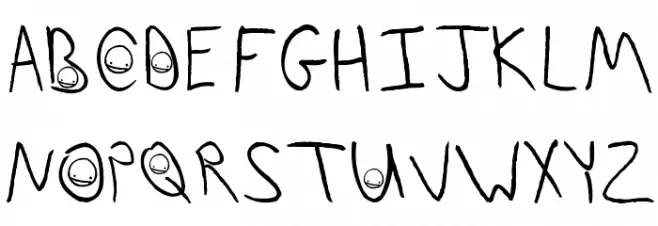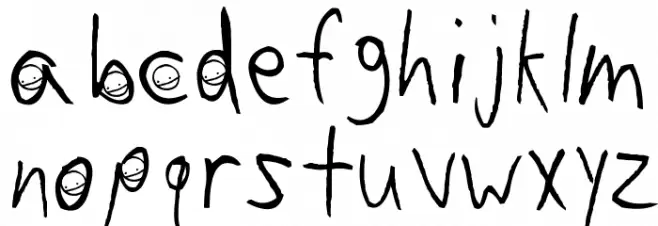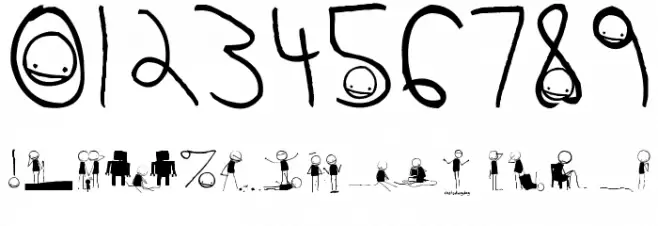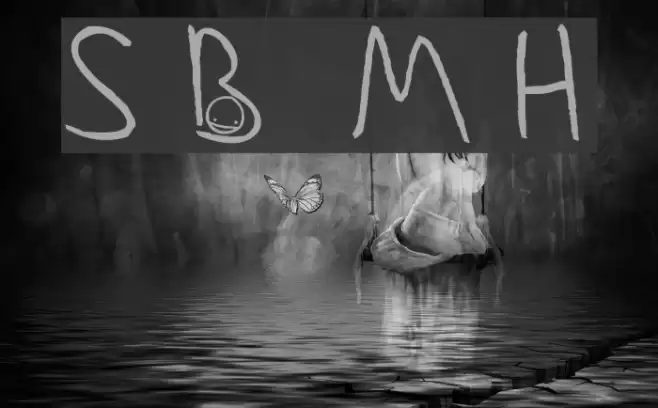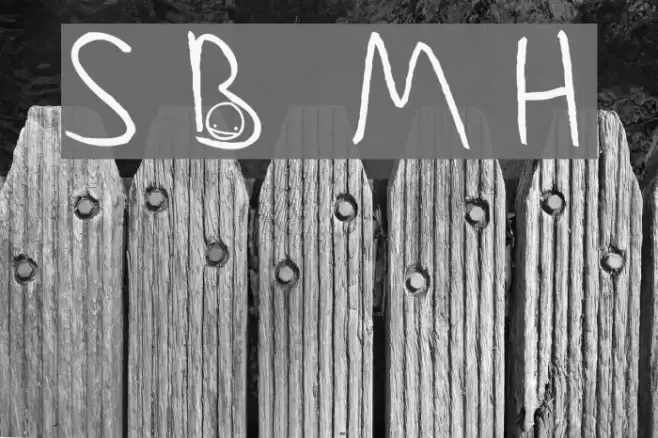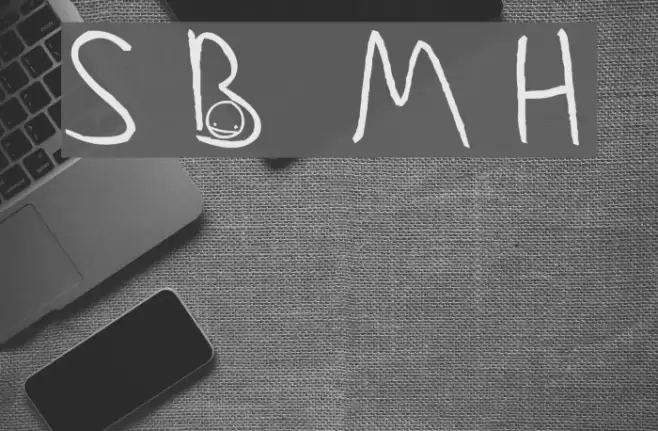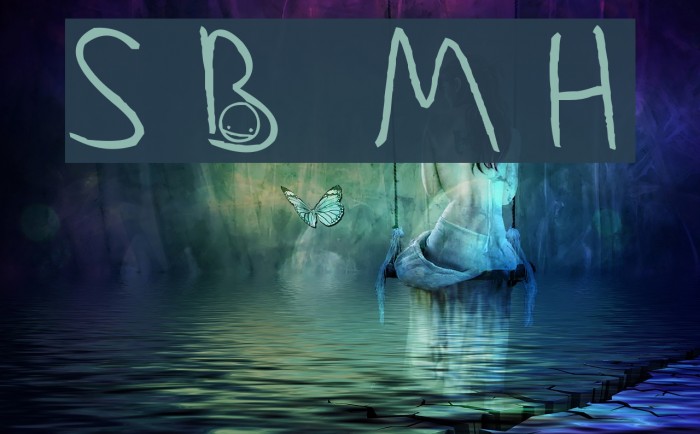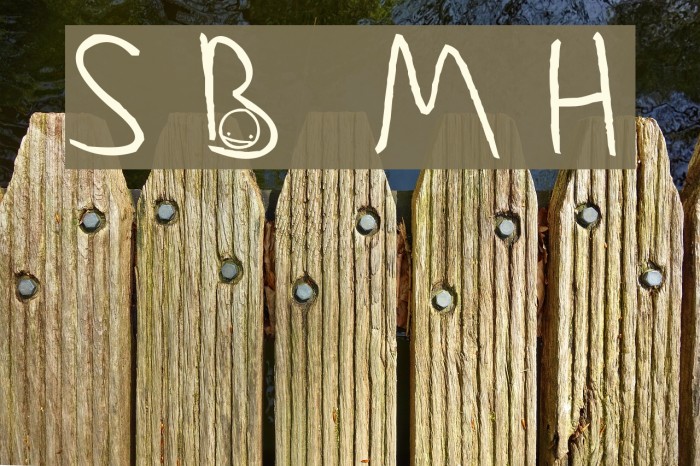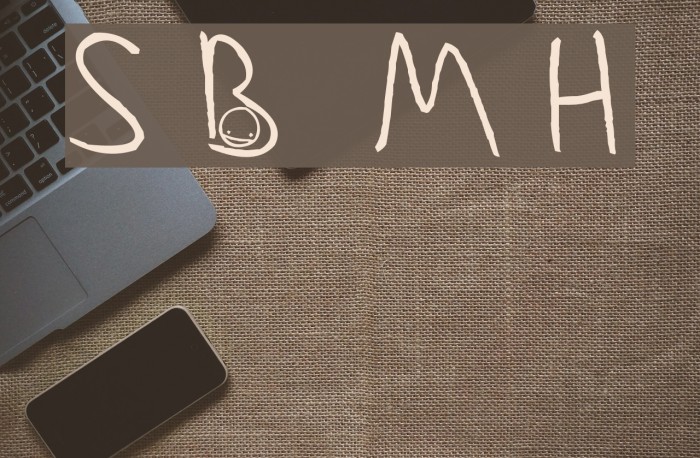
Sam Brown is My Hero
This playful and whimsical font features a hand-drawn style with quirky, uneven lines and a casual, informal appearance. Each character is unique, with some letters incorporating circular, eye-like embellishments that add a sense of fun and creativity. The font maintains a consistent baseline, but the heights and widths of the characters vary, contributing to its lively and dynamic feel. The numbers and special characters follow the same playful design, making it suitable for projects that require a touch of humor and personality.
A playful, hand-drawn font with quirky, uneven lines and unique embellishments.
- Proposed Projects: Ideal for children's books, comic strips, playful branding, and creative posters.
- Overall Style: Decorative
- Use Case: Logos, Headlines, Posters